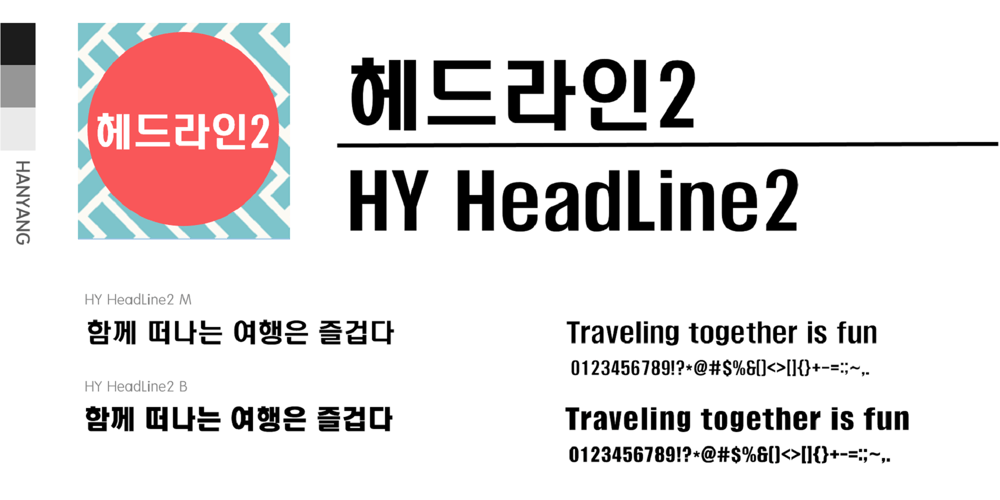
HY Head Line2 Font Family was designed by font hy and published by HY Font. HY Head Line2 contains 2 styles and family package options. This font was created to complement the existing HY headline, and the text lines at the top and bottom are full and the thickness is very thick.Although it is thick, it is easy to read as it secures internal space due to the large character elements.Although it is acceptable for body text, it is most effective when used as a title because it attracts the most attention.